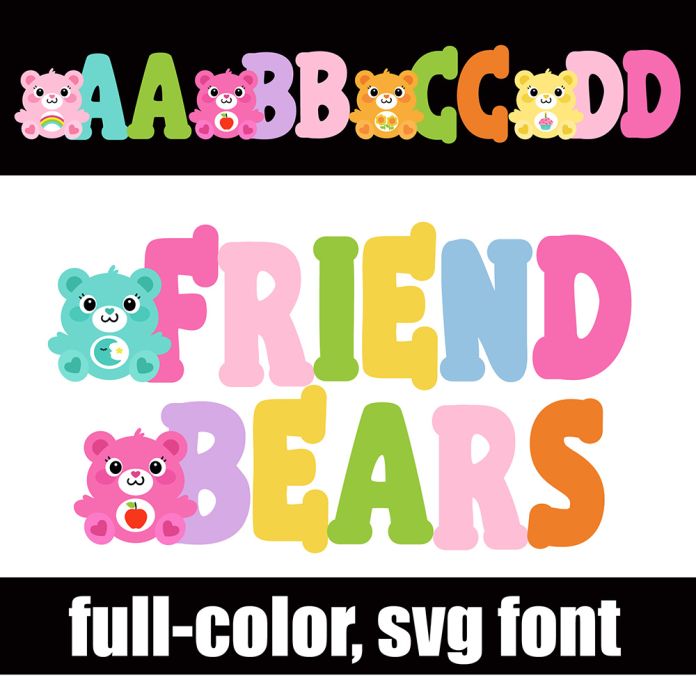
This full-color font features rainbow colored bears on fat, rounded serif lettering. There is an alt case w/ additional colors you can access through your system or Silhouette's glyph map. This font works best for titles, displays, posters and more. Please note color fonts will show as black in non compatible programs. This font type is compatible with Silhouette Studio.